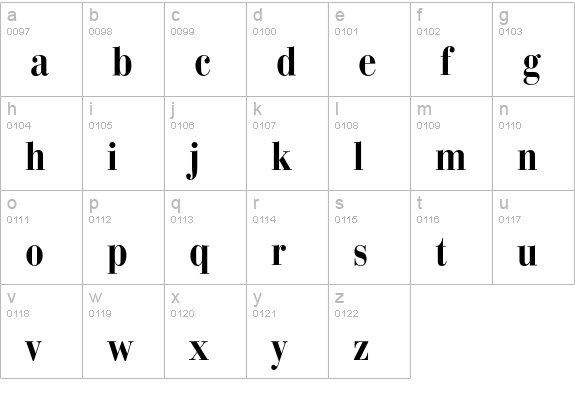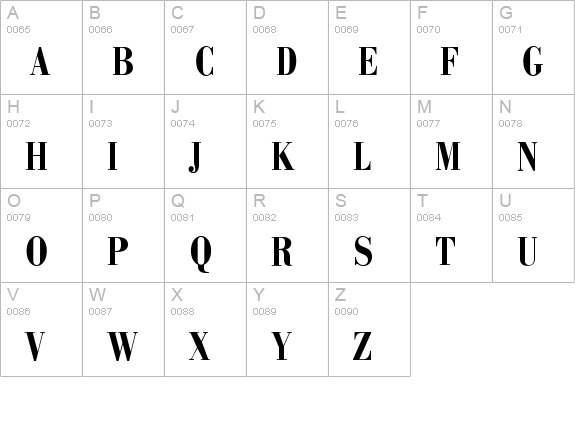
Bauer Bodoni Condensed Medium Font Details
Bauer Bodoni Condensed Medium is a balanced, medium-weight, condensed-width variant in the Bauer typeface family \xE2\x80\x94 well suited to sub-headlines, navigation, and balanced editorial work.
Bauer Bodoni Condensed Medium font is a timeless and elegant typeface that exudes sophistication and style. With its condensed design, this font is perfect for creating sleek and modern designs that demand attention. The clean lines and classic serifs of Bauer Bodoni Condensed Medium make it a versatile choice for a wide range of design projects, from branding to editorial design. The best part? Bauer Bodoni Condensed Medium font is available for free download at FontsMarket.com. Now you can add a touch of refinement to your designs without breaking the bank. Whether you're working on a logo, packaging, or website design, Bauer Bodoni Condensed Medium font is sure to elevate your project to the next level. Download it today and see the difference it can make in your designs!